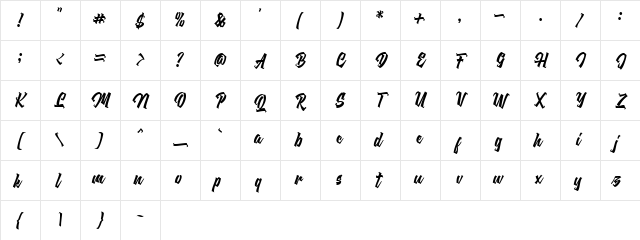
Brigherdz is a composed and adaptable typeface that performs quietly and consistently across a wide range of design contexts.
Pro Tip: Use Brigherdz in both headline and body roles to test its range before committing to a single application.